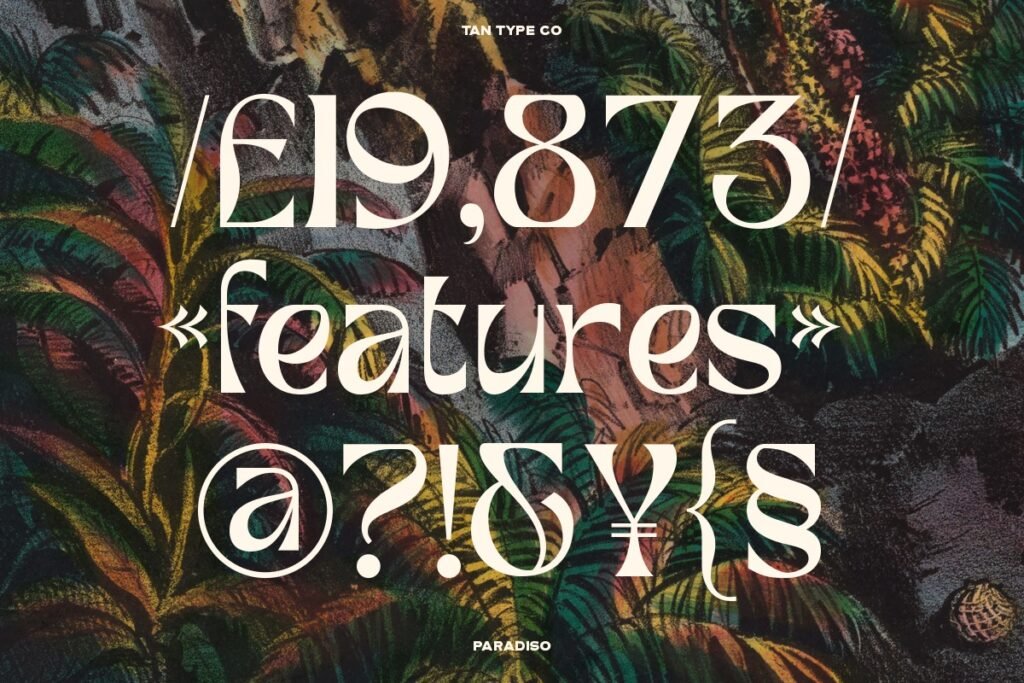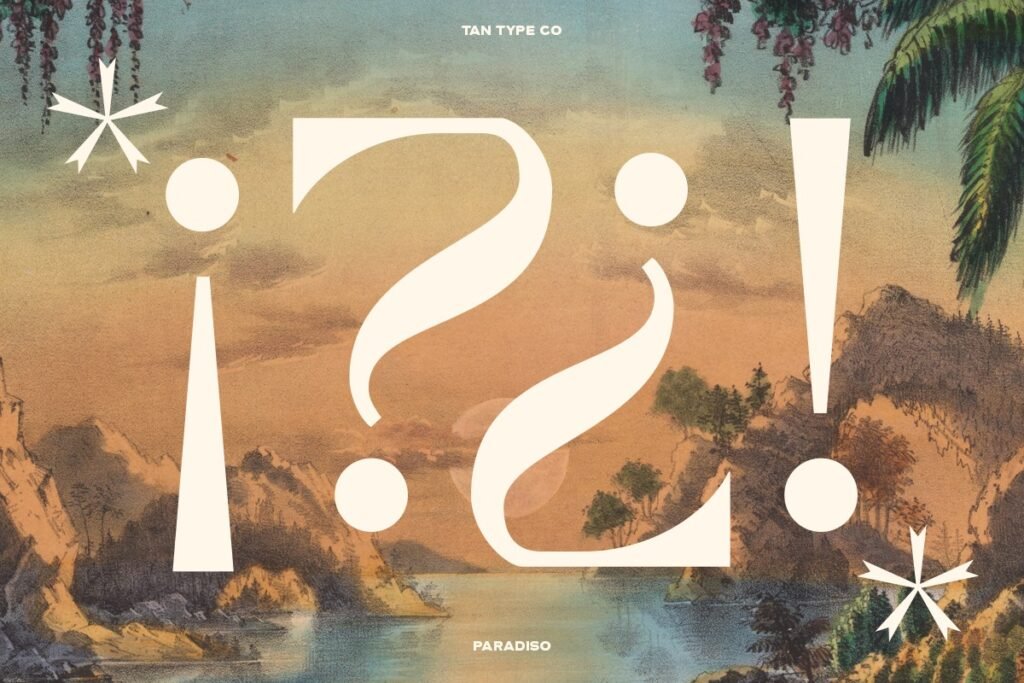
I’m excited to share my love for the Tan Paradiso font style. It’s become a big part of my design choices. This font stands out with its elegant and sophisticated look.
The Beauty of the TAN PARADISO FONT STYLE
The Tan Paradiso font style is known for its detailed beauty. As a serif font, it brings classic elegance to designs.
This font is not just pretty; it shows the skill in font design. Tan Paradiso makes any design look better with its elegant lines.
It adds sophistication to any text. Whether in headings or body text, it brings a professional touch.
The serif font design of Tan Paradiso also makes it easy to read. This is why designers choose it for both looks and function.
In my view, Tan Paradiso is a mix of old and new in font design. It’s great for many design needs.
Distinctive Design Elements That Captured My Heart
The Tan Paradiso font style is a true masterpiece in typography. It has a mix of classic and modern features. This makes it stand out The serif details and flourishes in Tan Paradiso are amazing. The serif details and flourishes in Tan Paradiso are amazing. They bring a touch of elegance and sophistication. This makes the font perfect for projects needing a refined look.
The serifs help the text flow smoothly. This creates a beautiful reading experience.
Weight Variations and Versatility
Tan Paradiso comes in many weight variations, from light to bold. This makes it very versatile. Designers can use it for body text or headings, keeping it both readable and attractive.
This versatility makes Tan Paradiso a great choice for designers. It’s both beautiful and functional.
Why Tan Paradiso Has Become My Go-To Font
The TAN PARADISO FONT STYLE has won me over. It’s a mix of elegance and versatility. This makes it a key part of my design projects.
Its unique design elements make it stand out. These elements add to its appeal in the world of typography.
What makes Tan Paradiso special is how it improves a design. It keeps things readable and looking good. I use it for branding and digital publications.
It’s a big help in my work. It lets me focus on other creative tasks. This font style is a must-have in my design toolkit.
Exploring Tan Paradiso has shown me its power. It’s more than just a font. It brings designs to life. If you want to add sophistication to your work, try Tan Paradiso.